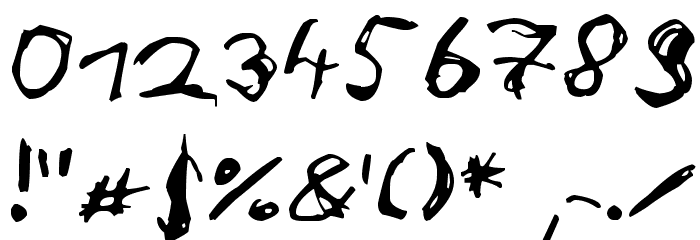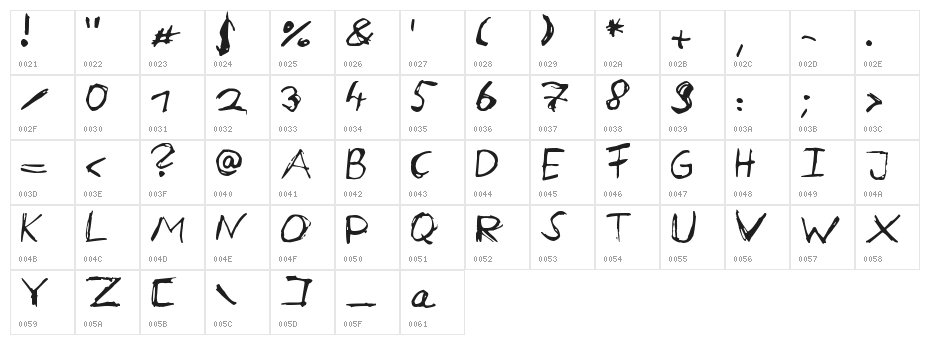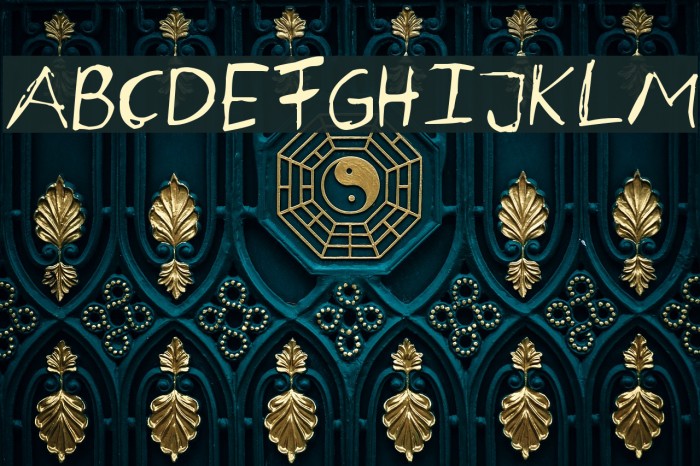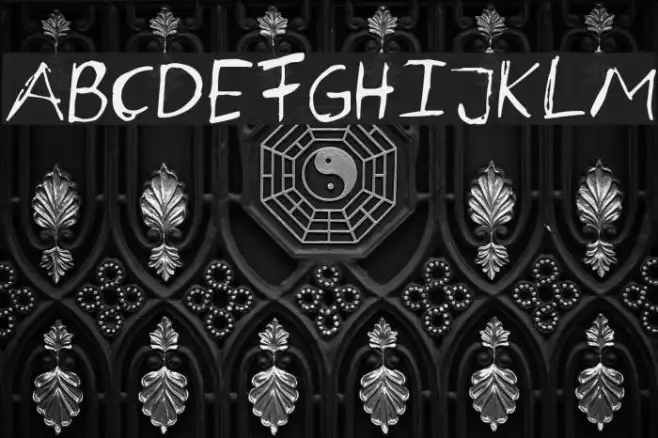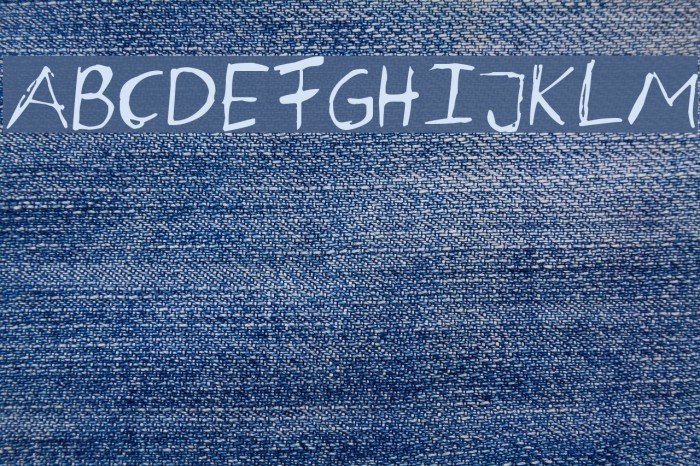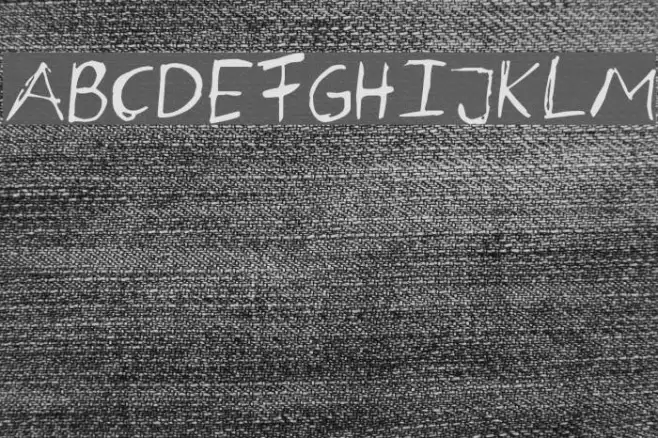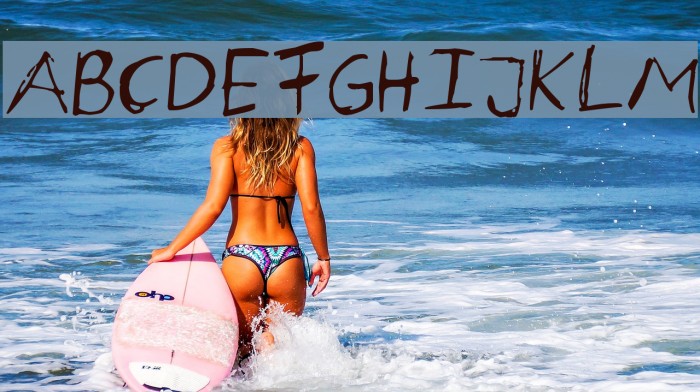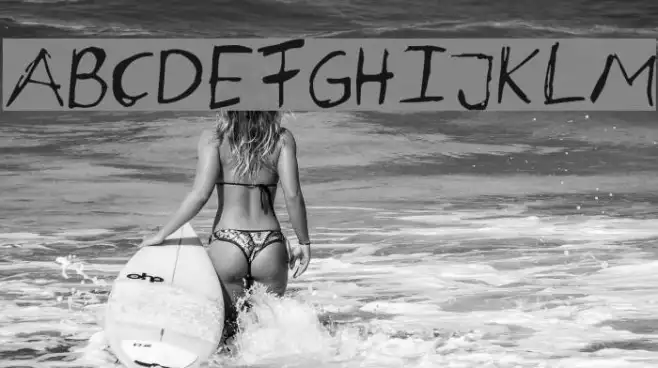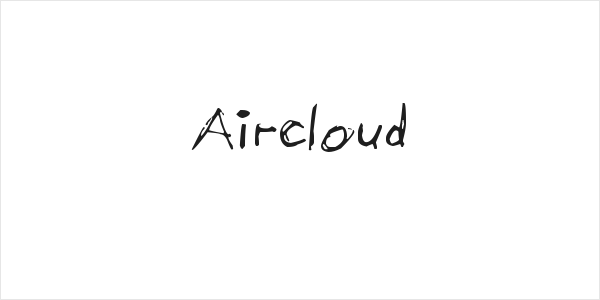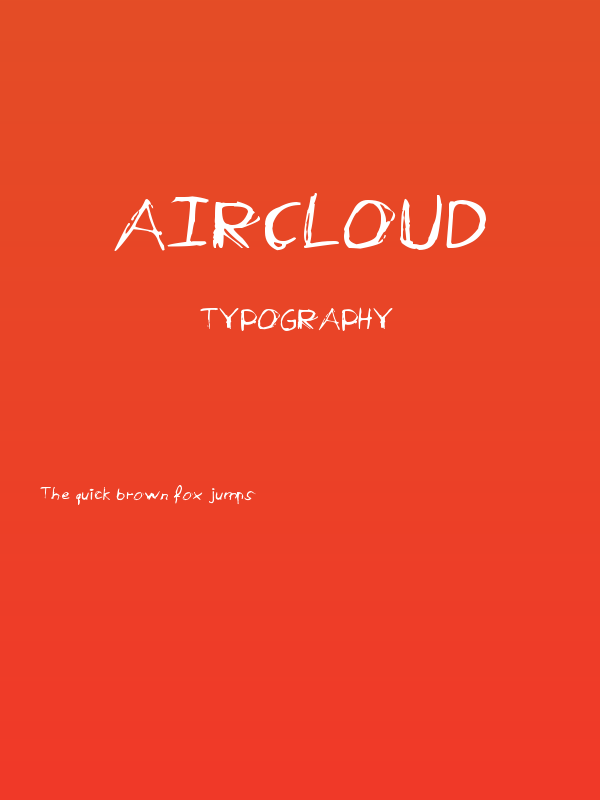
Aircloud Font
Aircloud Description
This font exhibits a dynamic and expressive handwritten style, characterized by its irregular and organic letterforms. The strokes are bold and varied, giving it a lively and energetic appearance. The uppercase and lowercase letters maintain a consistent flow, while the numbers and special characters integrate seamlessly with the overall design. The font's unique personality makes it stand out, with each character appearing as if it were drawn with a brush or pen, adding a personal touch to any text.
| Proposed Projects | Ideal for creative projects such as posters, invitations, and branding materials that require a personal and artistic touch. |